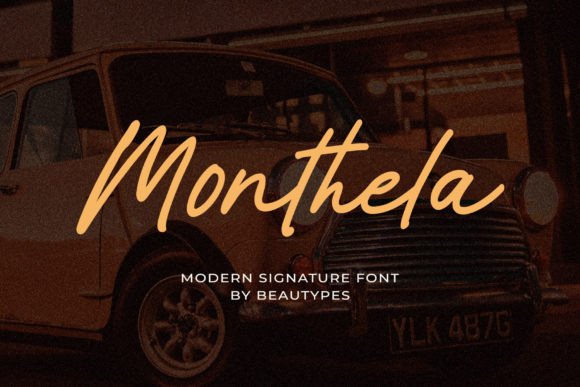
Introducing Monthela Font, the ultimate choice for those seeking the best font for their wedding proposal! Created by Beautypes, this modern and stylish handwritten font adds an elegant touch to any project, making it perfect for a wide range of applications.
Whether you're designing wedding invitations, business cards, quotes, thank you cards, greeting cards, branding materials, logos, magazines, or marketing materials, Monthela Font will bring a unique and personalized feel to your creations.
What sets Monthela Font apart is its PUA encoding, which allows you to effortlessly access all delightful glyphs and swashes. This means you can fully embrace the font's beauty and versatility, unleashing your creativity without any limitations.
Imagine the joyous reactions from your loved ones when they receive your wedding invitations adorned with Monthela Font. Its captivating elegance will leave a lasting impression and set the tone for your special day.
For businesses, Monthela Font helps you establish a strong brand identity. Its handwritten charm adds a personal touch to your logo, making it memorable and instantly recognizable.
But Monthela Font isn't just about aesthetics; it's also about emotions. Its graceful strokes evoke feelings of love, warmth, and sincerity, making it the perfect choice for expressing your heartfelt messages.
Don't settle for ordinary fonts when you can have Monthela Font, a true masterpiece that captures attention and sparks joy. Let your creativity flow and watch as this font elevates your designs to new heights.
Whether you're a professional designer or an amateur enthusiast, Monthela Font empowers you to create extraordinary pieces that leave a lasting impact. It's time to infuse your projects with the beauty and charm of Monthela Font.